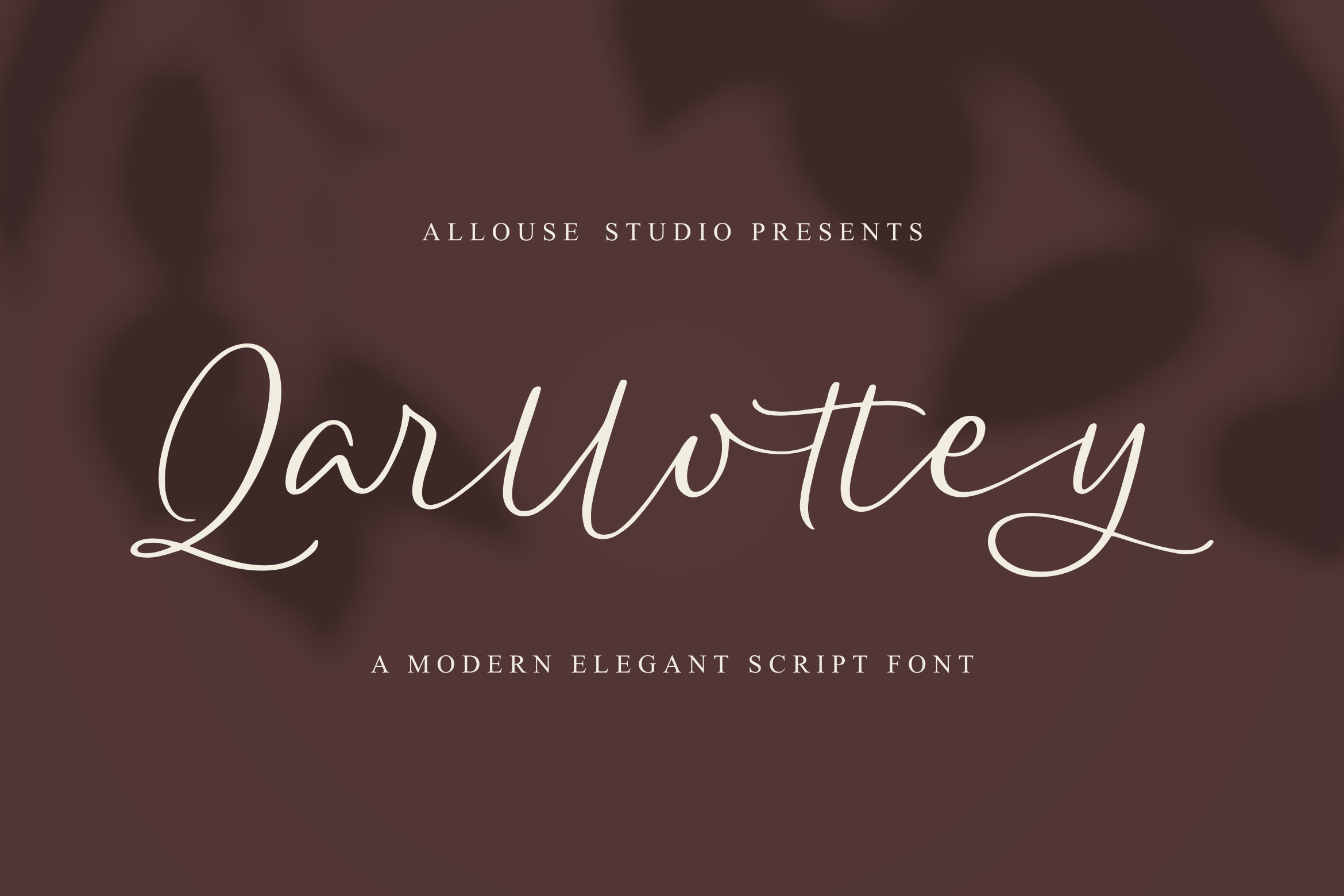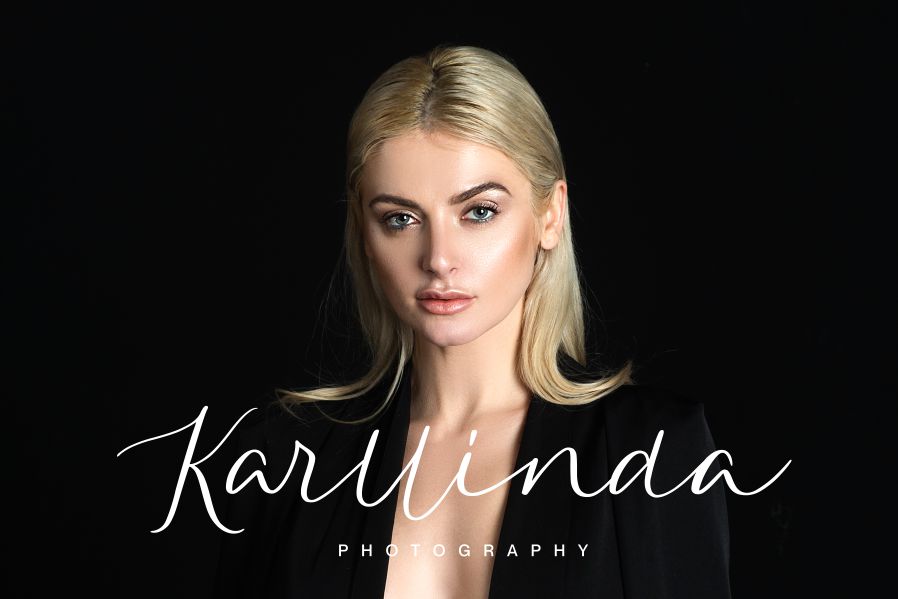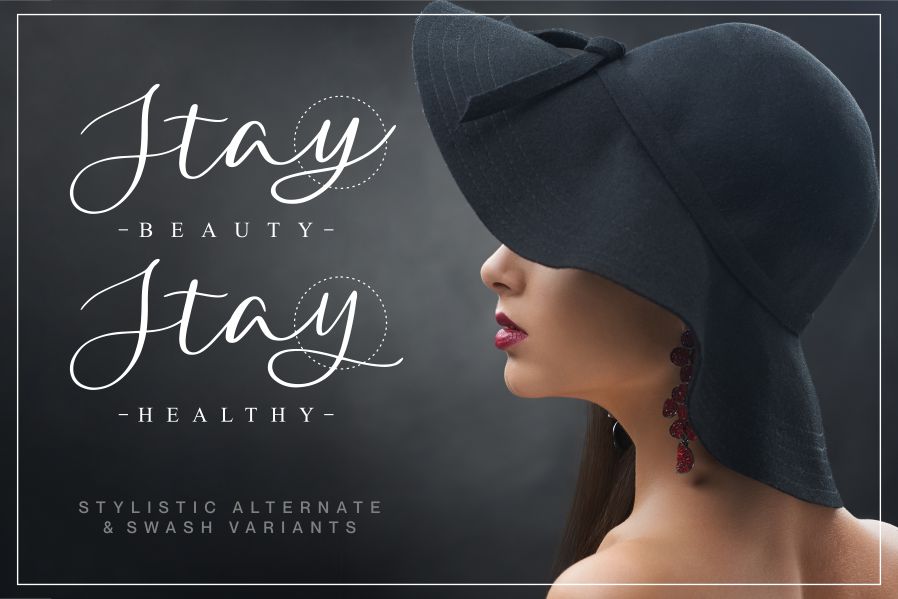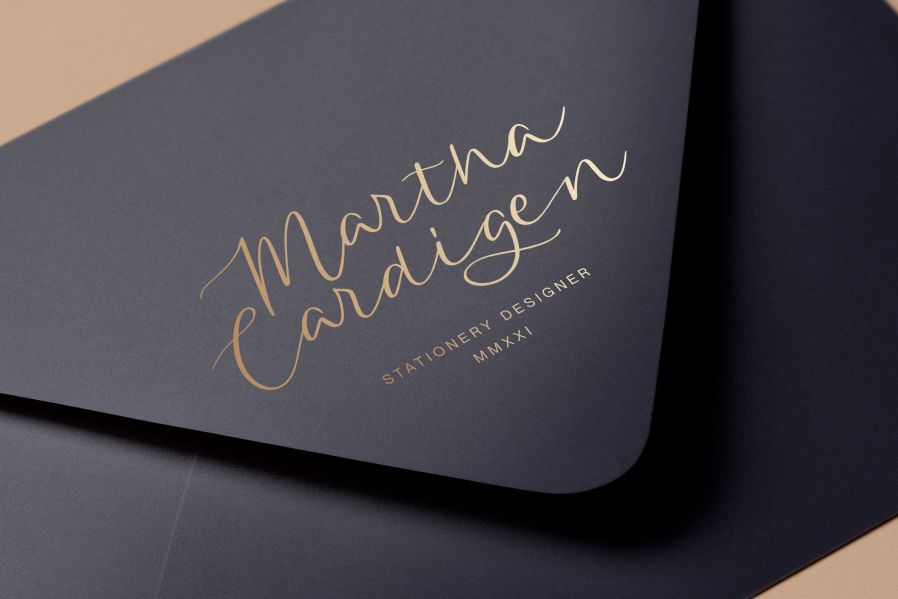
Qarllottey Font
Qarllottey Script Font
It’s a beautiful and refined script font. It has a classy, elegant and modern look that can be used for logos, branding, invitations, stationery, wedding designs, social media posts, and much more!